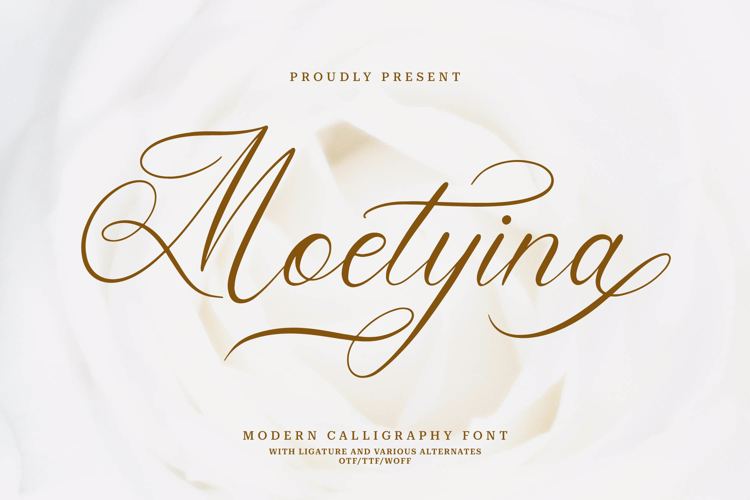
Moetyina Font
Moetyina | Modern Calligraphy Font is suitable for any projects such as: logos, branding projects, homeware designs, product packaging, mugs, quotes, posters, shopping bags, t-shirts, book covers, name card, invitation cards, greeting cards, label, photography, watermark, special events, and all your other lovely projects that need a Modern Calligraphy Font taste.